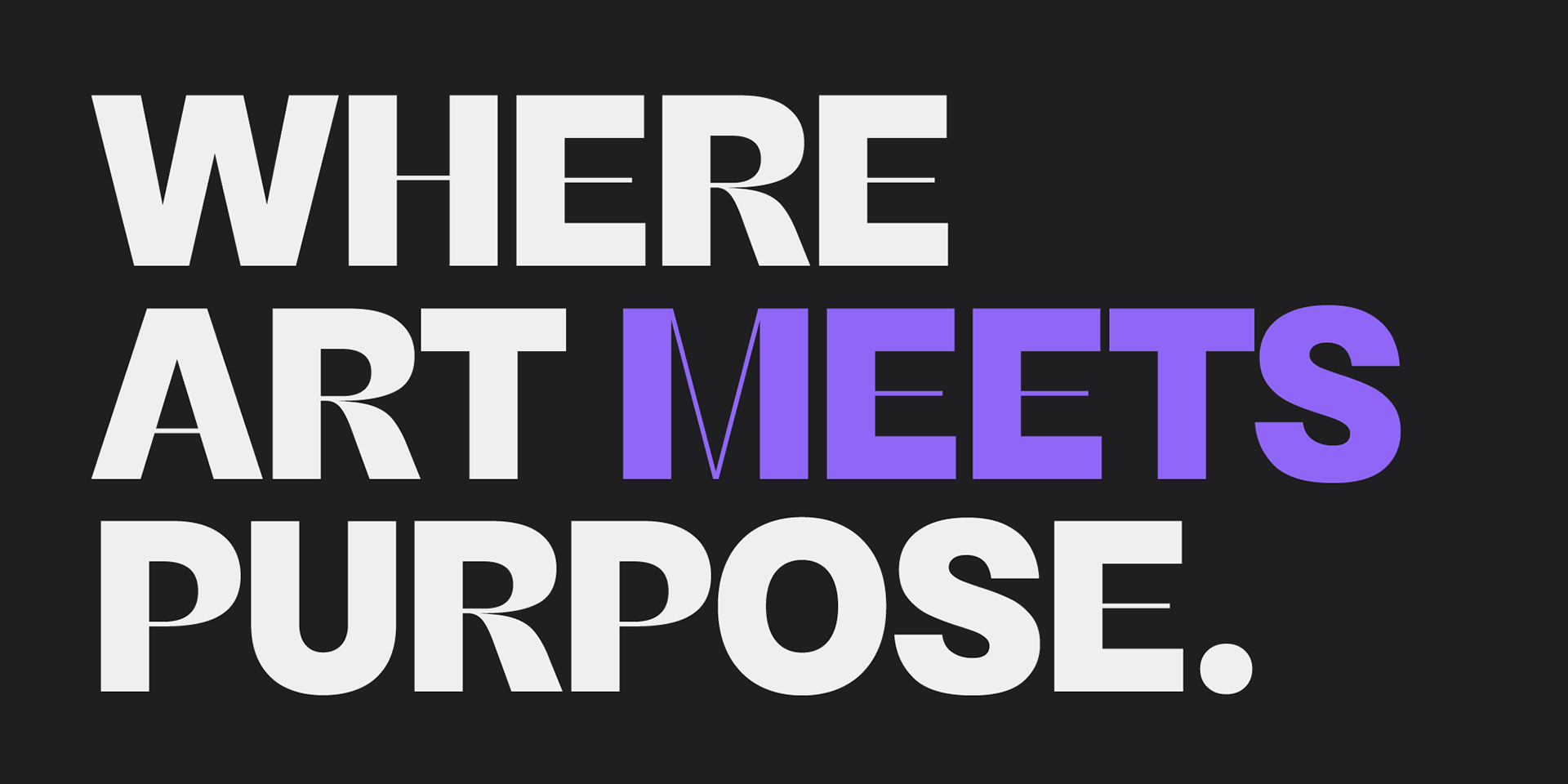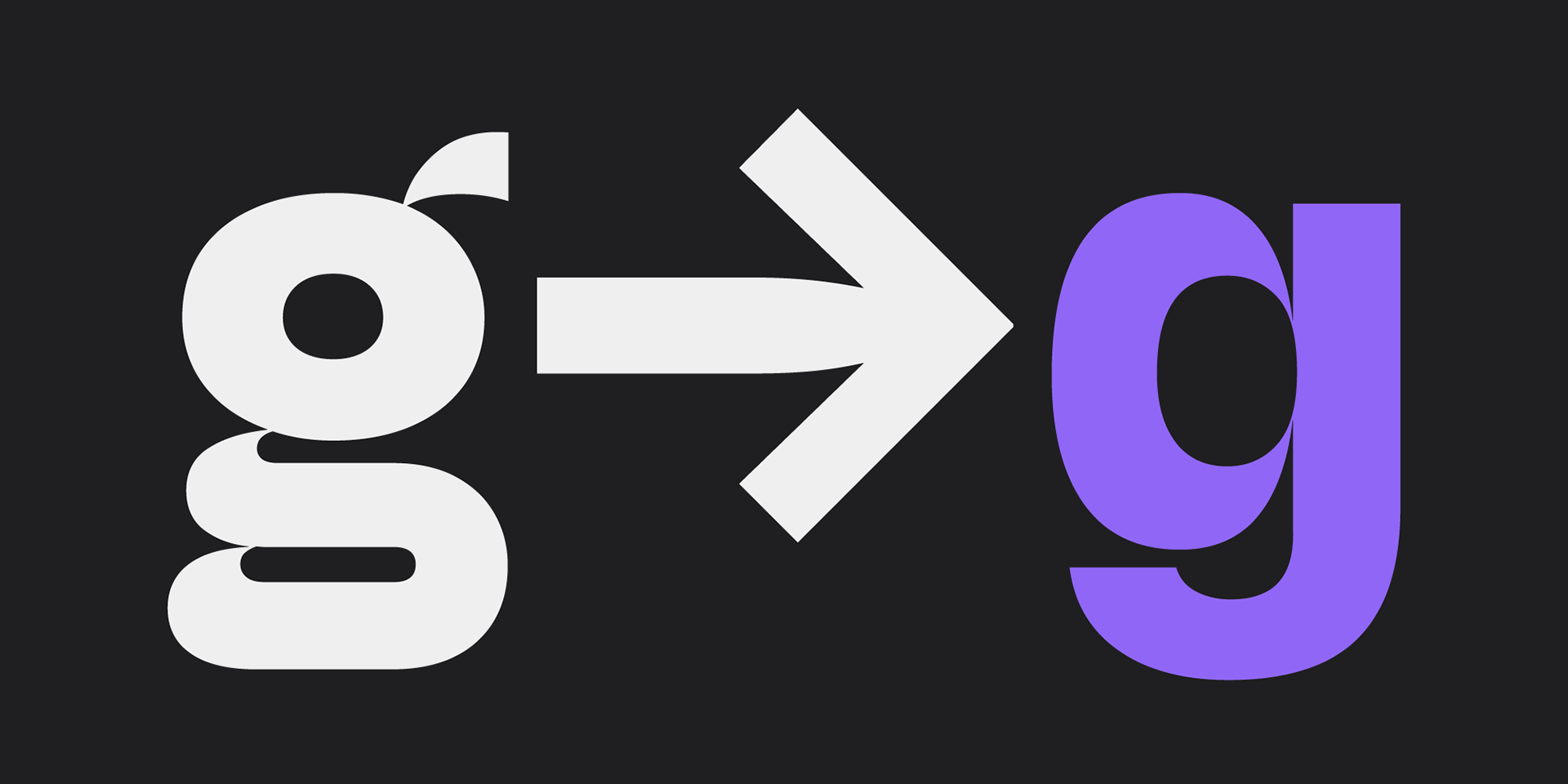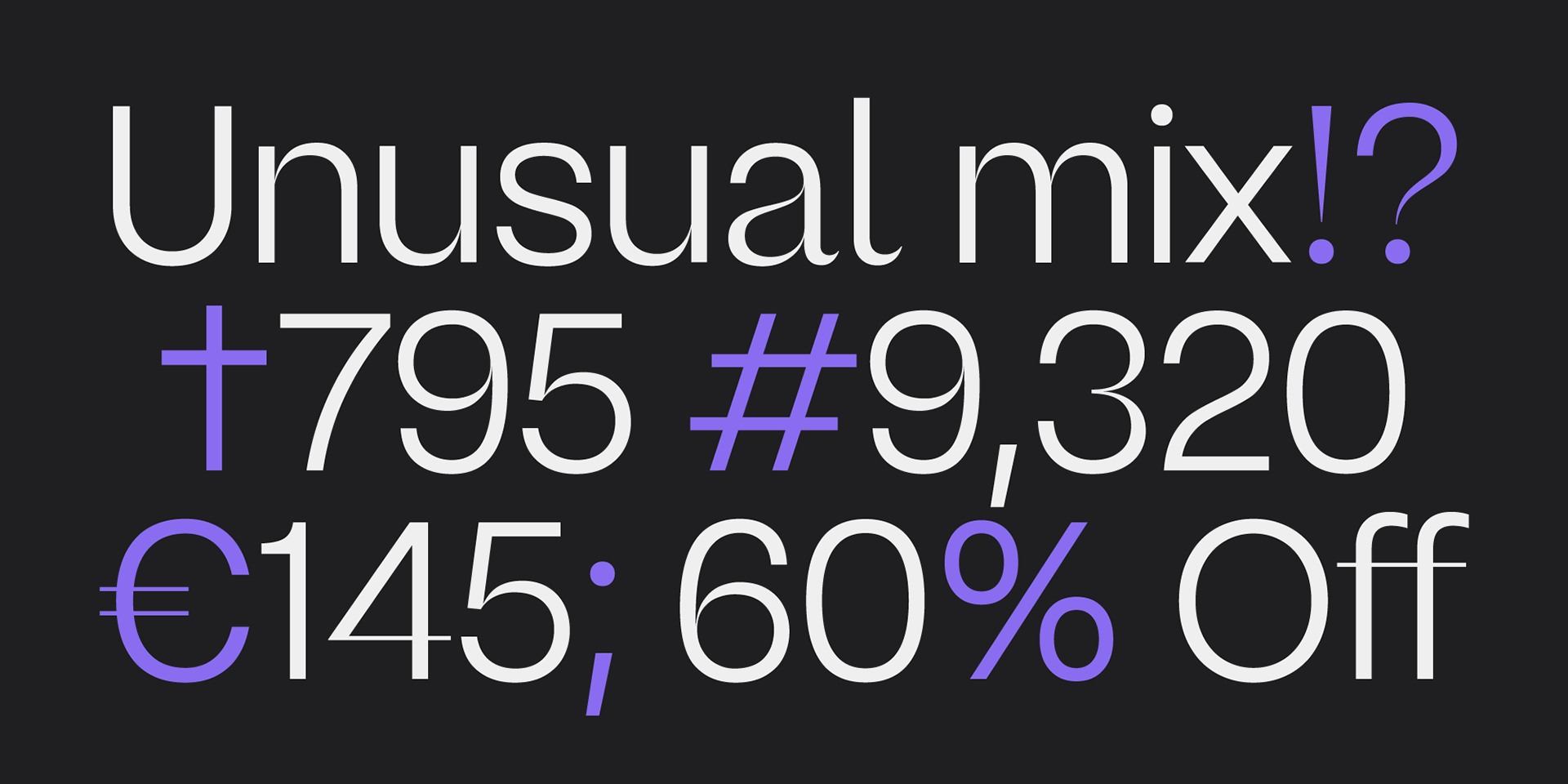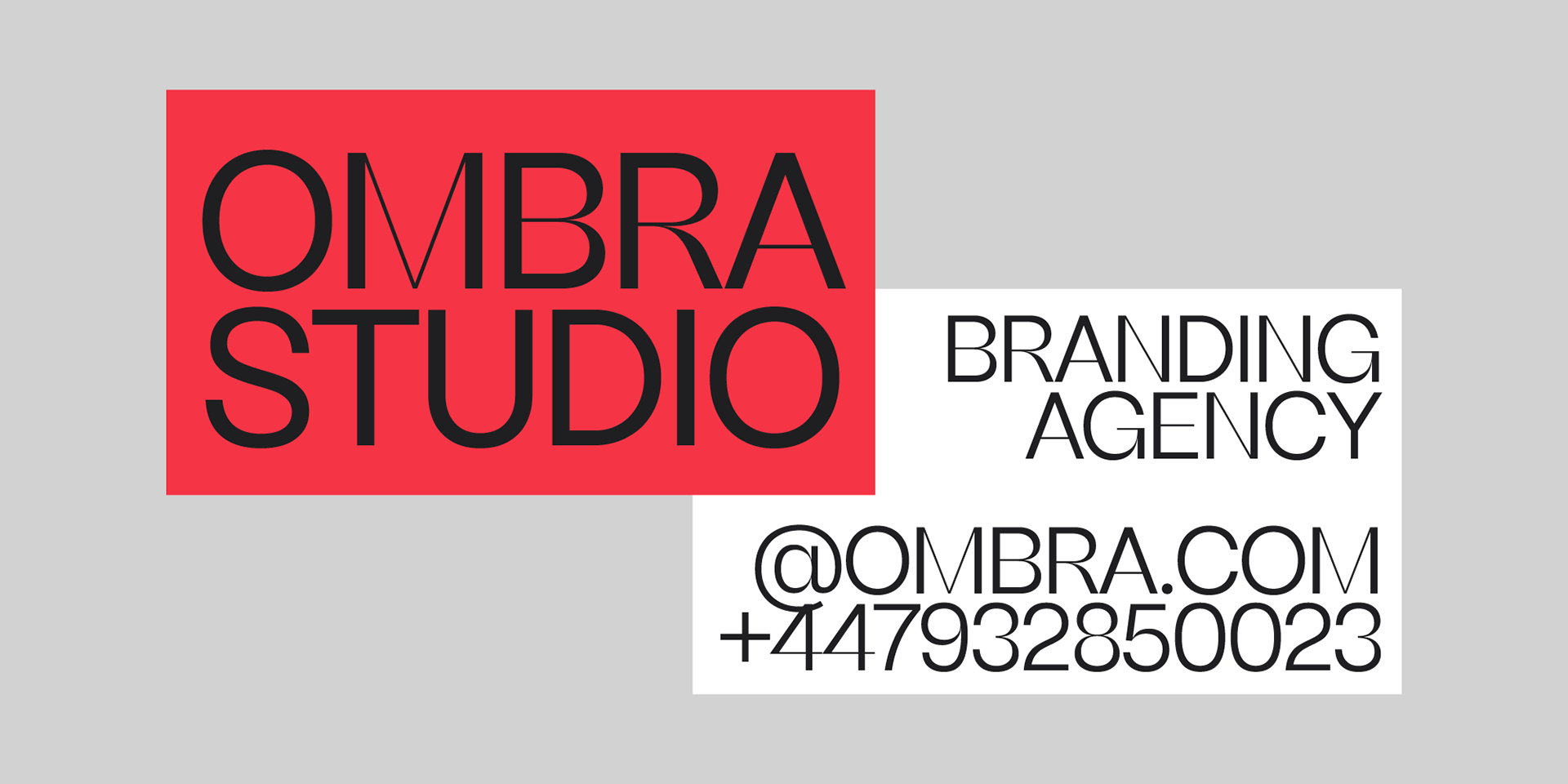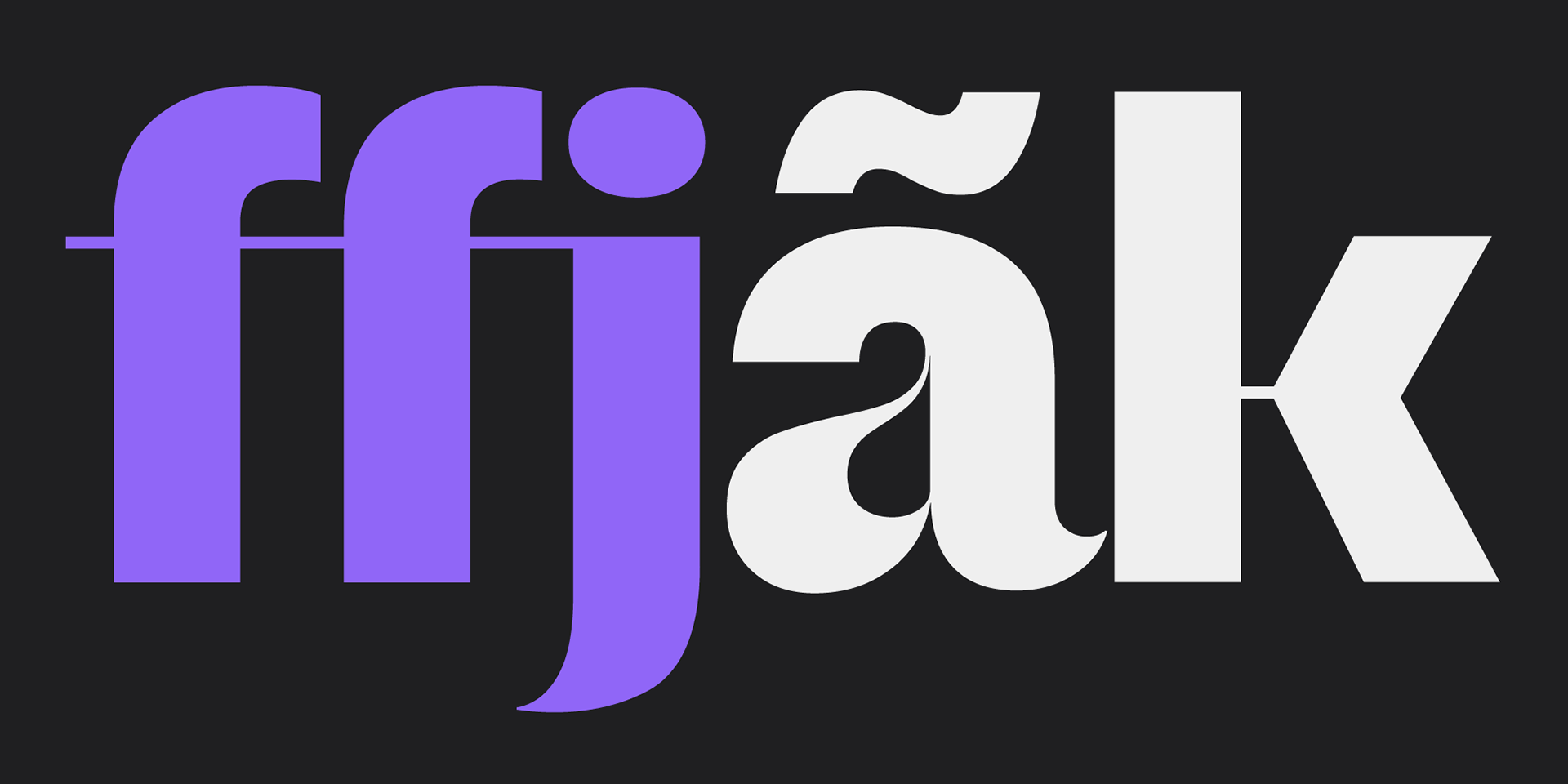
Introducing Remixa, a cutting-edge modern sans-serif typeface that seamlessly incorporates elements from serif typefaces, resulting in a truly unique and captivating design.
Remixa boasts a carefully crafted set of six weights, ranging from light to bold, allowing for versatile usage across a wide range of design projects. Each weight has been meticulously balanced to ensure optimal legibility and visual impact, empowering designers to create captivating and expressive compositions.
Its clean lines and subtle serif-inspired details create a harmonious blend that stands out in both digital and print media. Experience the essence of modernity and timeless elegance with Remixa.